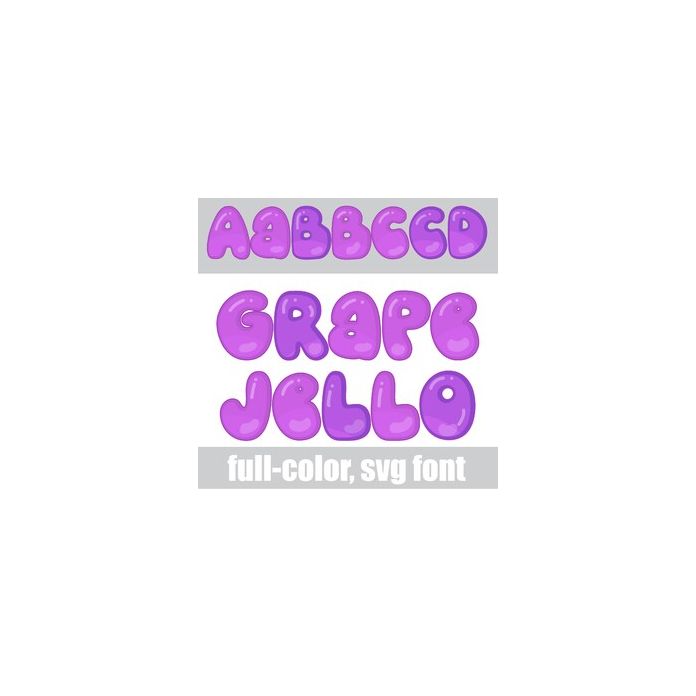
This full-color font looks like glossy grape gelatin. There is an alt case w/ additional colors you can access through your system or Silhouette's glyph map.